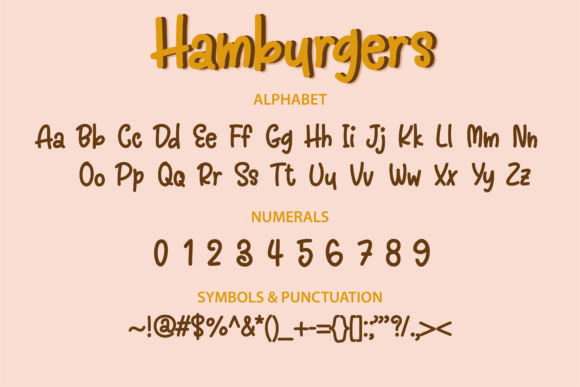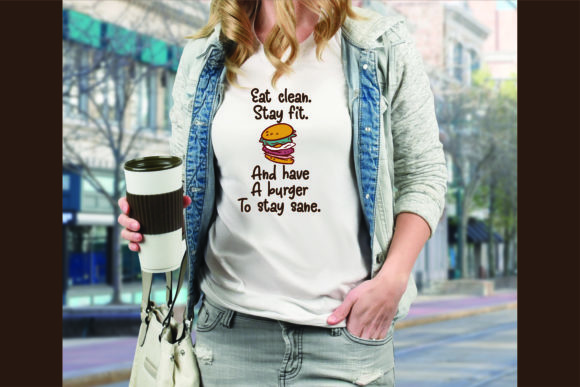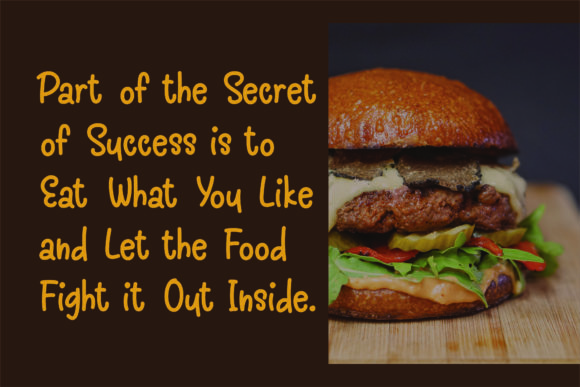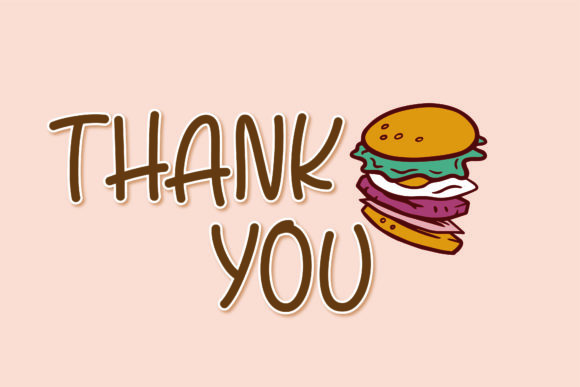
Hamburgers Font: A Sweet and Quirky Handwritten Delight
Are you on the hunt for a font that adds a dash of personality to your designs? Look no further than Hamburgers, a sweet and quirky handwritten font that’s sure to capture your imagination. With its natural and unique style, Hamburgers is incredibly versatile and can be used in a wide range of designs, from playful crafts to sophisticated branding projects.
The Charm of Hamburgers Font
Hamburgers Font is a one-of-a-kind typeface that boasts a charming, hand-crafted feel. Its irregularities and quirks give it a delightfully human touch that’s perfect for designs that require a personal and approachable vibe. Whether you’re creating invitations, packaging, or social media graphics, Hamburgers Font is sure to add a sprinkle of magic to your work.
What Makes Hamburgers Font So Special?
- Unique Style: Hamburgers Font features a distinctive, handwritten style that’s both sweet and quirky. Its unusual letterforms and irregular spacing make it a standout in any design.
- Natural Look: Unlike some fonts that can look stiff or artificial, Hamburgers Font has a wonderfully natural look that’s reminiscent of handwriting.
- Versatility: Thanks to its unique style, Hamburgers Font can be used in a wide range of designs, from playful and whimsical to sophisticated and elegant.
- Imagination-Defying: As the font’s creators say, “The only limit is your imagination!” With Hamburgers Font, you can create anything from cute crafts to stunning branding projects.
Hamburgers Font is a dream come true for designers and crafters who want to add a personal touch to their work. Whether you’re creating:
- Party Invitations: Use Hamburgers Font to create playful and eye-catching invitations that set the tone for a fun celebration.
- Branding Materials: Add a touch of personality to your business cards, logos, and packaging with this unique font.
- Crafts: From scrapbooking to DIY projects, Hamburgers Font is perfect for adding a handwritten touch to your crafts.
- Social Media Graphics: Stand out on social media with eye-catching graphics that feature Hamburgers Font.
Tips for Using Hamburgers Font
To get the most out of Hamburgers Font, here are a few tips to keep in mind:
- Experiment with Sizes: Hamburgers Font looks great in a range of sizes, from small and delicate to large and bold.
- Play with Colors: This font looks amazing in a variety of colors, so don’t be afraid to get creative with your color palette.
- Mix and Match: Combine Hamburgers Font with other fonts to create a unique and eye-catching design.
In conclusion, Hamburgers Font is a sweet and quirky handwritten font that’s perfect for designers and crafters who want to add a personal touch to their work. With its unique style, natural look, and versatility, this font is sure to inspire your creativity and take your designs to the next level. So why wait? Get creative with Hamburgers Font today and see where your imagination takes you!